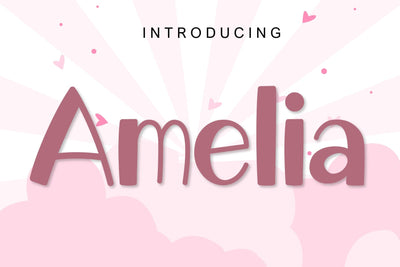
Amelia Font
Amelia is a fun Display font designed for headlines, titles, and subtitles.
The inspiration for this typeface design is to make it look like you're writing it in a cute way. You can use it for various projects, such as blog posts, logos, branding, ads, invitations, greeting cards, planners, photo albums, decorations, and much more. Add it to any of your designs, and enjoy the results!